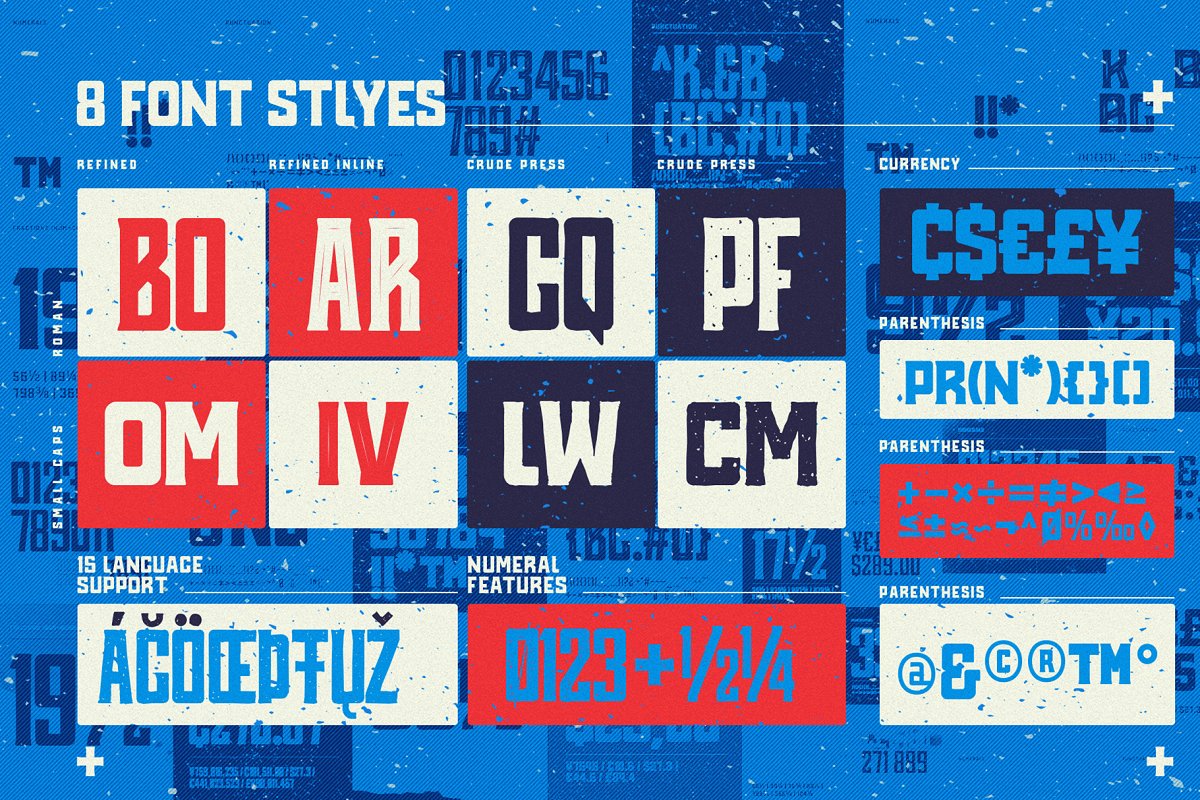
About the Blue Oil Co. | Vintage Font Family
Blue Oil Co, Is a vintage inspired serif font family, This typeface was the result of a fusion of sans geometrik sans with a vintage serif finish, The letterforms are rectangular in form with rounded corners and slightly protruding serifs, With the wide range of styles in the font family, you can add a clean or grungy look to your designs using this typeface
Blue Oil has two main styles that have four variant styles each, namely: Refined and Crude, Each style comes in Roman Capitals and Small Capitals, allowing you to add contrasting-type to your designs, The typeface is ideal for use in Retail branding, wordmark design, social media, apparell, brand identity and UI Design amongst other uses
Blue Oil Co, comes in 8 styles: Blue Oil Co, Refined:Refined Roman, Refined SmallCaps, Refined Inline, Refined Inline SmallCaps Blue Oil Co, CrudeCrude Roman, Crude SmallCaps, Crude Roman Press, Crude SmallCaps Press, Support for 85 languages detected:Afrikaans / Albanian / Asu / Basque / Bemba / Bena / Breton / Catalan / Chiga / Cornish / CroatianCzech / Danish / Dutch / English / Estonian / Faroese / Filipino / Finnish / French / Friulian / GalicianGanda / Gusii / Hungarian / Inari Sami / Indonesian / Irish / Italian / Jola-Fonyi / Kabuverdianu / KalenjinKinyarwanda / Latvian / Lithuanian / Lower Sorbian / Luo / Luxembourgish / Luyia / Machame / Makhuwa-Meetto / Makonde / Malagasy / Maltese / Manx / Morisyen / Northern Sami / North Ndebele / Norwegian Bokmål / Norwegian Nynorsk / Nyankole / Oromo / Polish / Portuguese / Quechua / Romanian / RomanshRombo / Rundi / Rwa / Samburu / Sango / Sangu / Scottish Gaelic / Sena / Serbian / Shambala / ShonaSlovak / Soga / Somali / Spanish / Swahili / Swedish / Swiss German / Taita / Teso / Turkish / Upper SorbianUzbek (Latin) / Volapük / Vunjo / Welsh / Western Frisian / Zulu